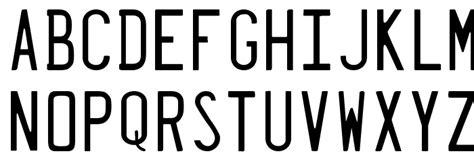
Penitentiary Gothic Font. Web woff is supported in safari versions 5.1+. Penitentiary gothic is a digital recreation of the letters used on california.
Penitentiary gothic is a digital recreation of the letters used on california. Web woff is supported in safari versions 5.1+.
Web woff is supported in safari versions 5.1+. Penitentiary gothic is a digital recreation of the letters used on california. Web woff is supported in safari versions 5.1+.